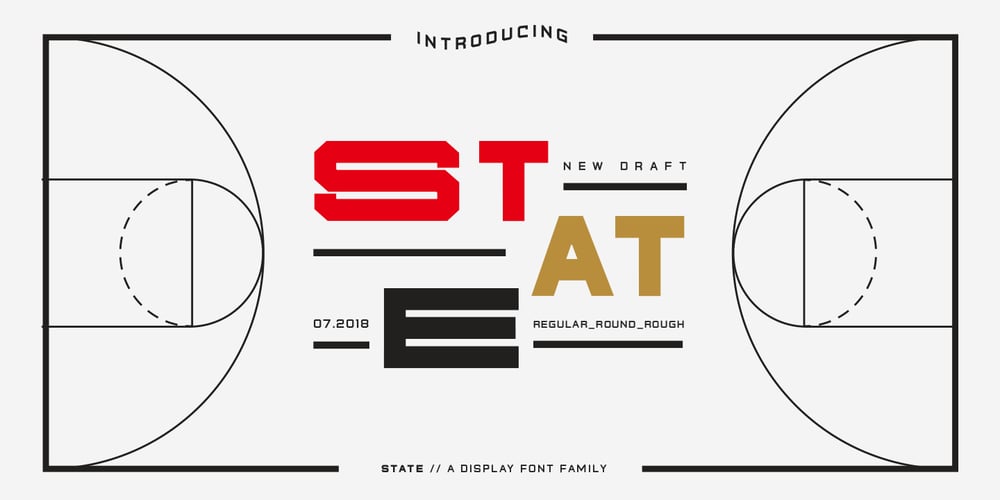
State Wide Font Family was designed by Andrew Footit and published by Arkitype. State Wide contains 42 styles and family package options. Say hello to State, this family is inspired by sport and a further development on Comply Slab. This family of fonts has some bold letters as well as stylistic alternates to give your layouts some interesting variation. State comes in 3 styles, Regular, Soft and Rough each with 7 weights and italics. It was specifically designed with a wider structure for better appearance in small sizes and the extra attention to the detail was needed for the big sizes. Use State to get the delivery you need, whether its for print, online or Television.